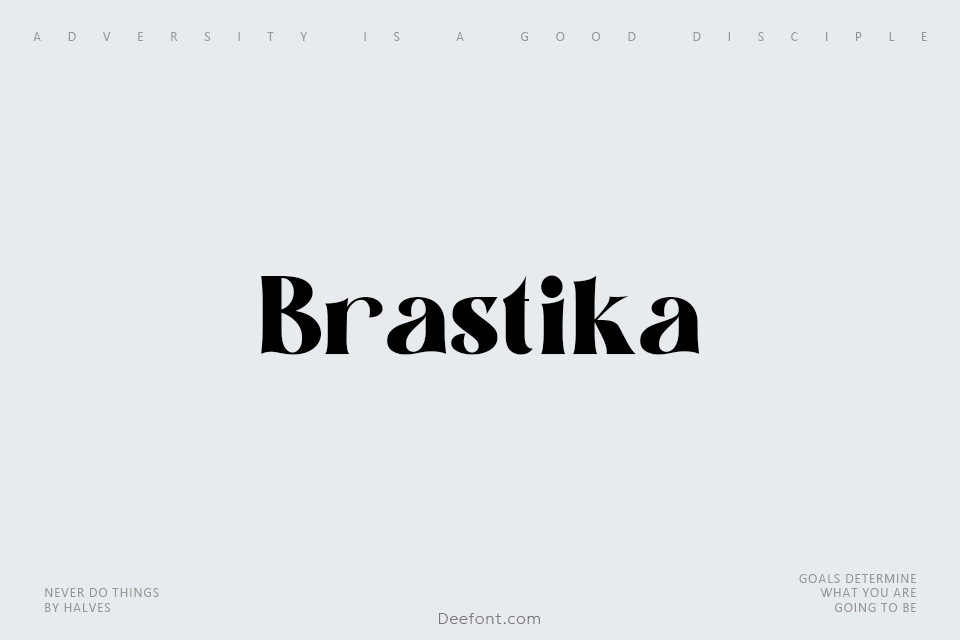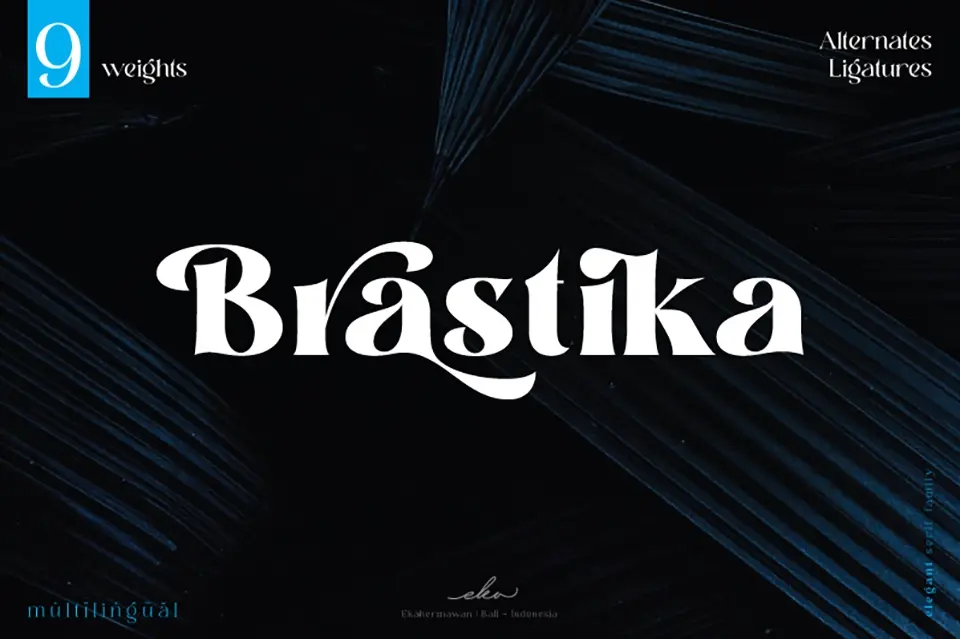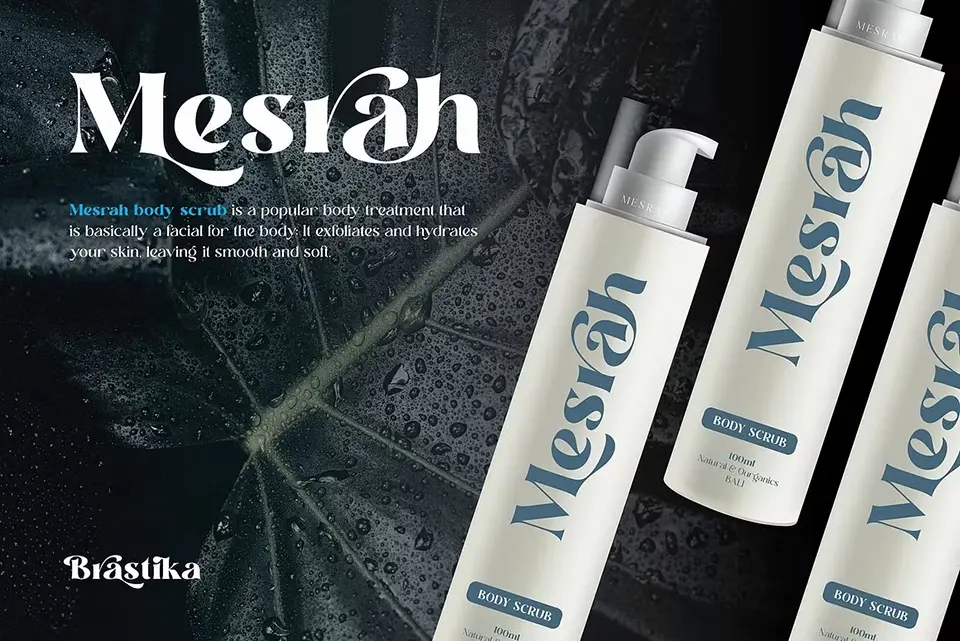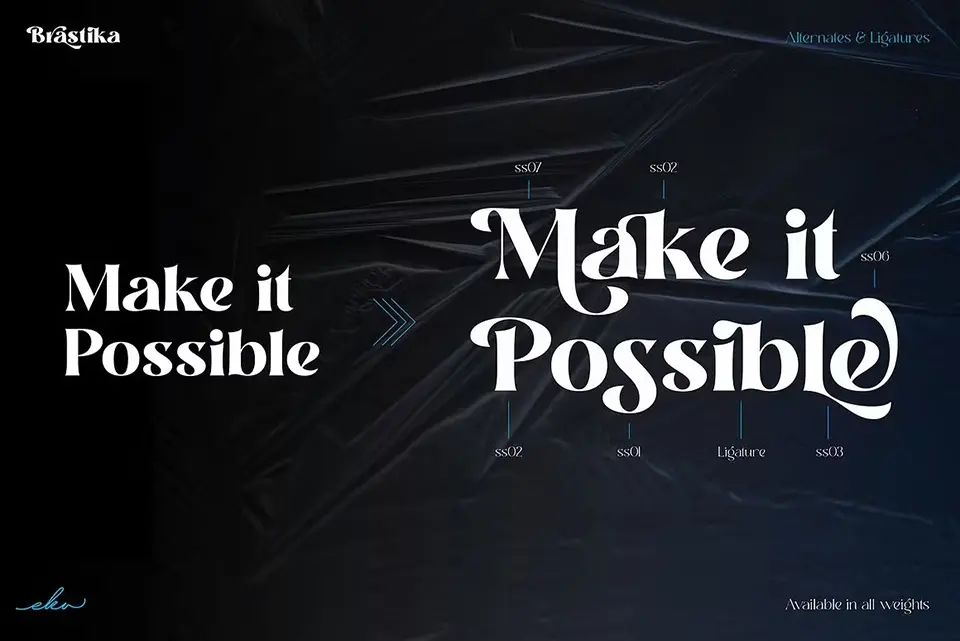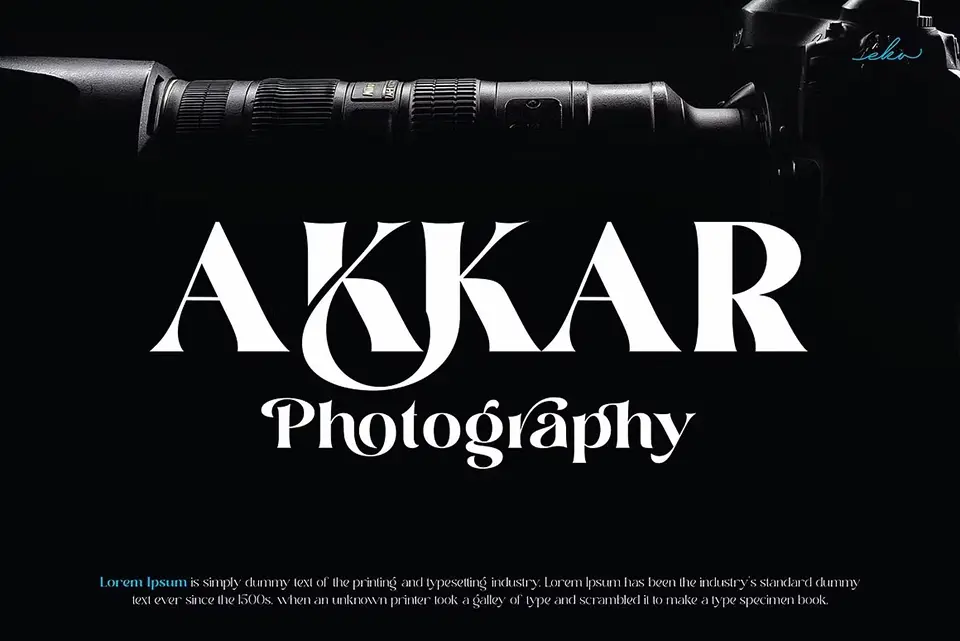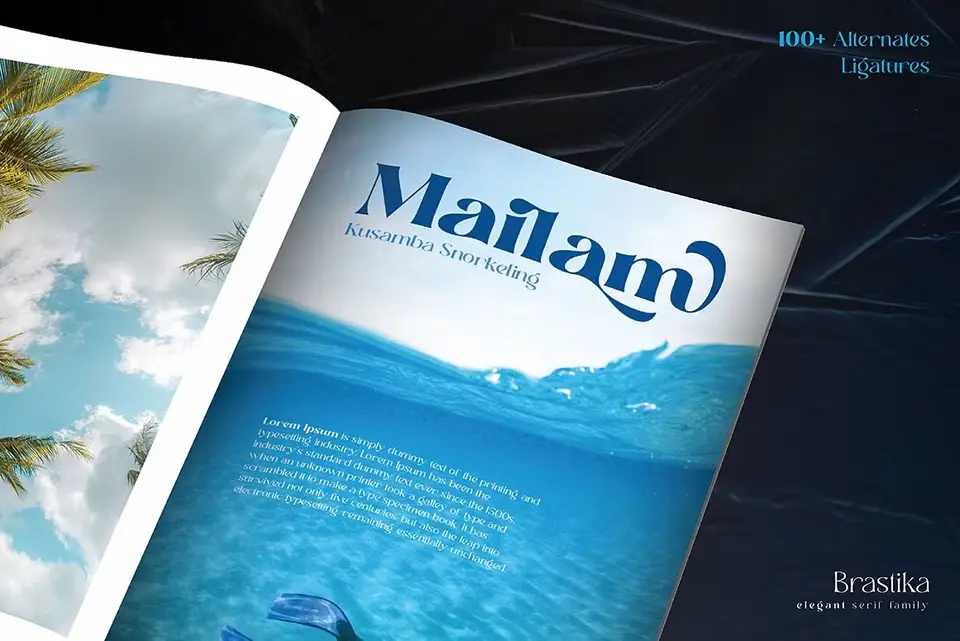
Brastika Font
Brastika is an elegant and decorative serif typeface designed to blend vintage aesthetics with contemporary flair. Created by Putu Eka Hermawan, this font combines old-fashioned charm with modern design sensibilities, making it versatile for various creative applications. The typeface features playful characteristics suitable for personal branding, logos, book covers, packaging, and display purposes. With its distinctive serif style and decorative elements, Brastika brings a sophisticated and charming presence to any design project while maintaining excellent readability across different scales.